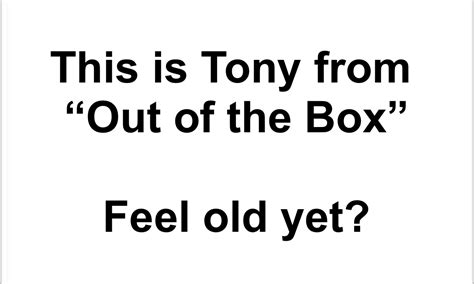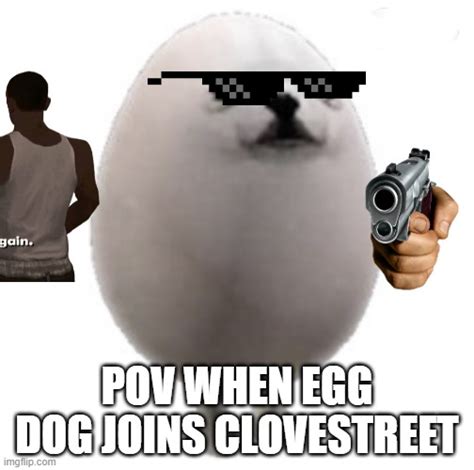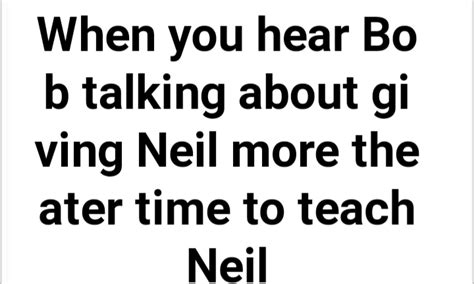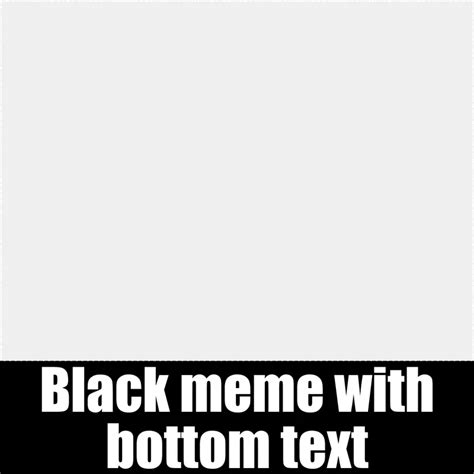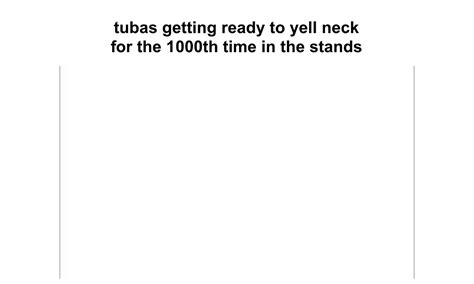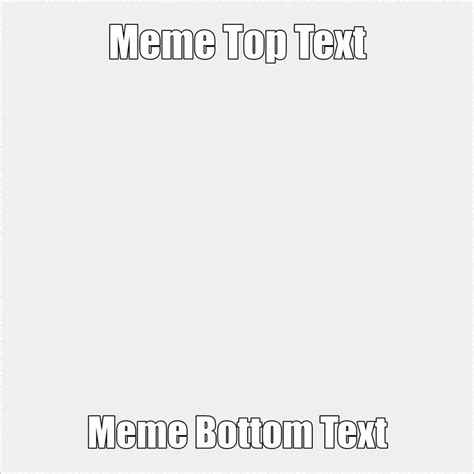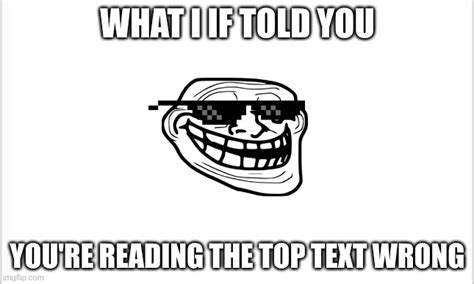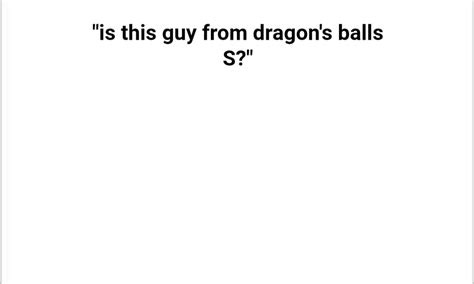
The world of online communication has given rise to a unique form of expression known as memes, which have become an integral part of internet culture. These memes often feature a simple, eye-catching design, and one of the key elements that contribute to their impact is the choice of font. When it comes to creating memes with a white background, the font selection plays a crucial role in making the text stand out and convey the intended message effectively.
In this expository, we will delve into the concept of white background meme font, exploring its significance and the various factors that contribute to its effectiveness. We will also discuss the importance of choosing the right font style and size to ensure that the meme's message is communicated clearly and memorably.
The use of a white background in memes is a popular choice as it provides a clean and crisp canvas for the text. This simplicity allows the font to take center stage, ensuring that the message is easily readable and not overshadowed by complex graphics or colors. However, the challenge lies in selecting a font that complements the white background while also being visually appealing and easy to understand at a glance.
Two key concepts related to this topic are legibility and aesthetic appeal. Legibility refers to how well the text can be read, especially in a small size or at a distance. A well-chosen font will ensure that the meme's message is easily understandable, even when viewed quickly or from a distance. Aesthetic appeal, on the other hand, involves the visual attractiveness of the font, which can enhance the overall impact of the meme.
One of the key benefits of using a white background with a carefully selected font is the enhanced readability. This is particularly important in the fast-paced world of online communication, where users often scroll through numerous posts and memes in a short amount of time. A font that is easy to read will ensure that your message is not missed or misunderstood, making it more likely to resonate with your audience.